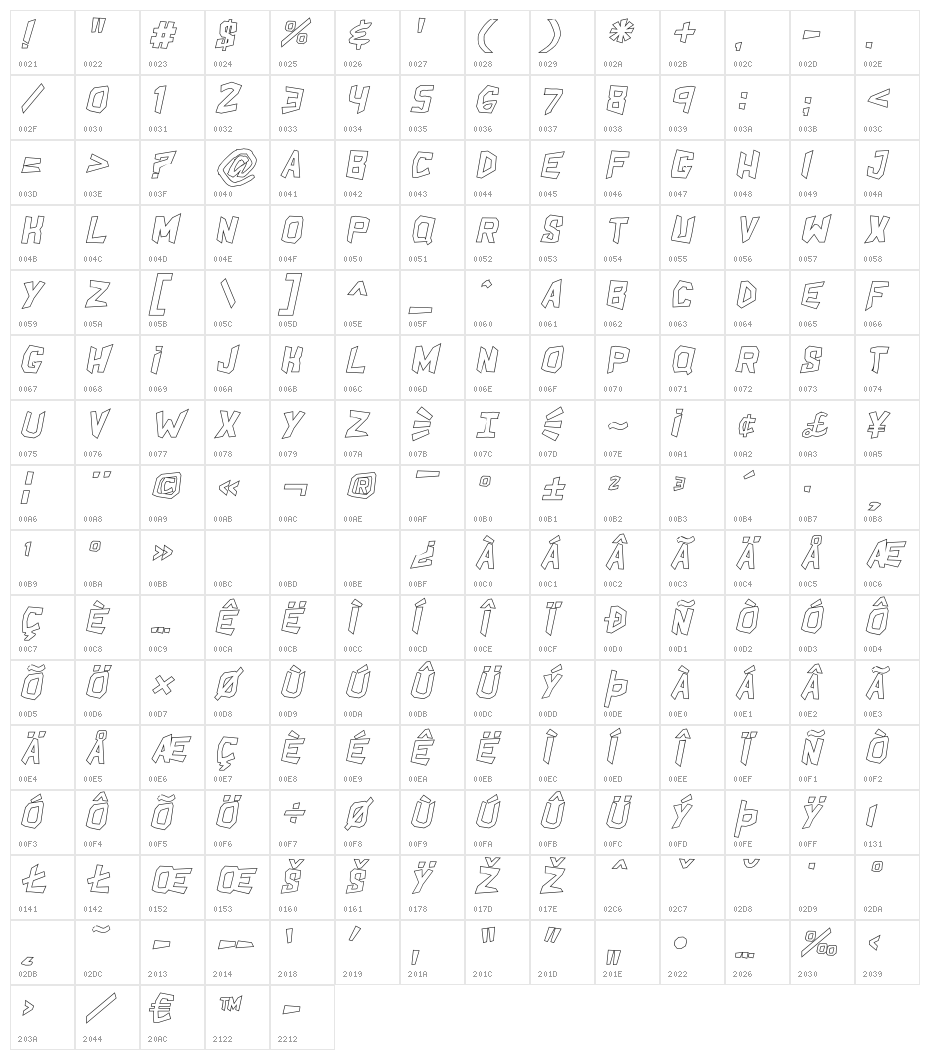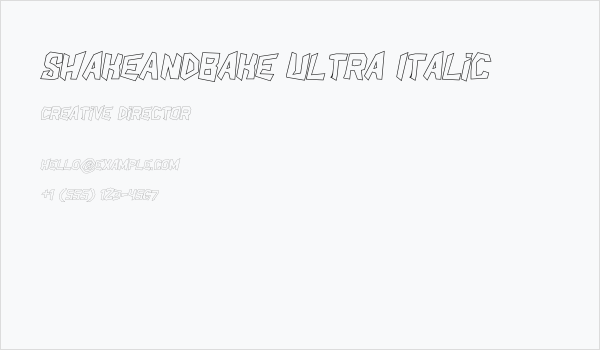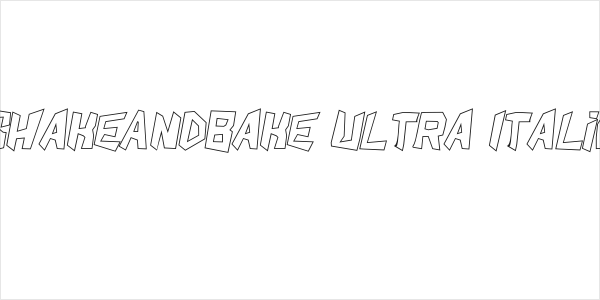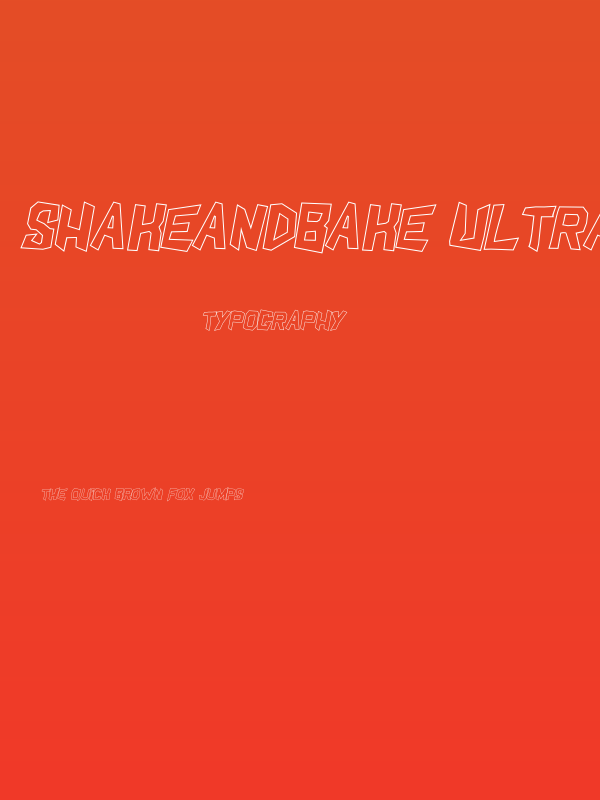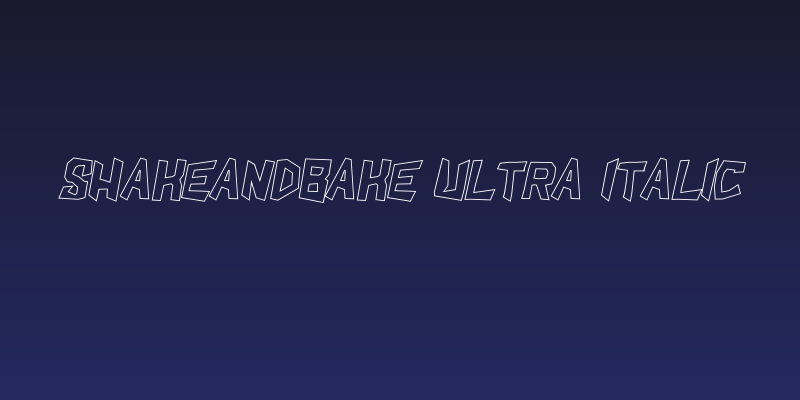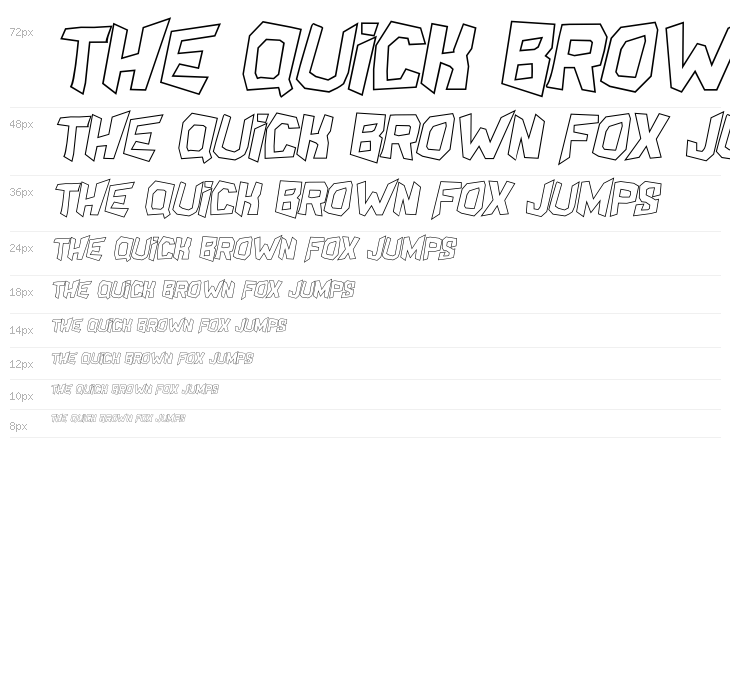
ShakeAndBake Ultra Italic Font
ShakeAndBake Ultra Italic Description
This font features a bold, dynamic style with a distinct italic slant, giving it a sense of movement and energy. The characters are outlined with a thick, angular stroke, creating a three-dimensional effect that makes each letter pop. The uppercase and lowercase letters maintain a consistent style, with sharp edges and a geometric structure. The numbers and special characters follow the same design principles, ensuring uniformity across all glyphs. This font's unique design makes it ideal for projects that require a strong visual impact.
| Proposed Projects | Ideal for posters, logos, and branding materials that need a dynamic and energetic look. |